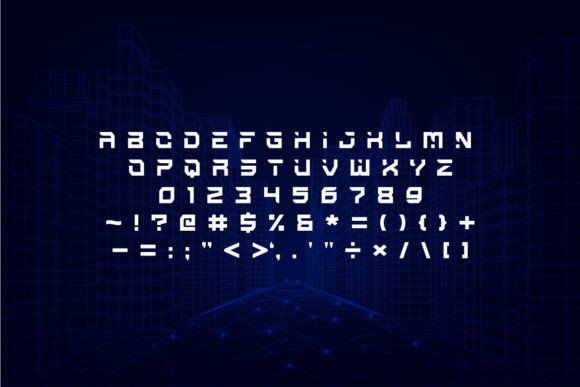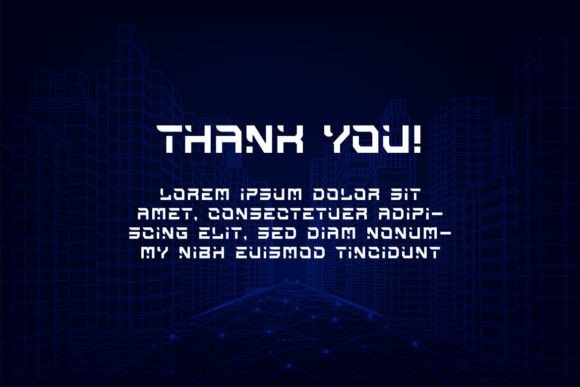
Introduction to Gosted Font
Gosted is a modern and cool display font.
This futuristic and innovative vibe can easily apply to your favorite designs such as book covers, magazines, social media posts, invitations, and so much more .